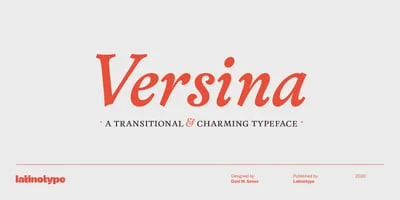
Versina Font
Versina Font is perfect for poetry publications, artistic magazines, creative writing projects, literary journals, fine art galleries, cultural exhibitions, sophisticated branding, elegant invitations, and expressive editorial layouts. This graceful typeface brings poetic elegance and artistic sophistication to projects requiring refined typography with creative flair and literary sensibility.
What makes Versina Font exciting is its poetic rhythm that captures the musical cadence of verse and literary expression with remarkable grace and artistic sensitivity. The font features flowing letterforms with subtle variations and harmonious proportions that create visual poetry and emotional resonance. Its literary character and expressive personality make it irresistible for creative professionals seeking typography that communicates artistic depth while celebrating the beauty of written language and creative expression.
The Versina Font family includes expressive weights and artistic styles: Light, Regular, Medium, Bold, and calligraphic variations with stylistic alternates and poetic ligatures. Each weight maintains the font's literary character while offering designers creative flexibility for artistic publishing and cultural communication applications requiring expressive typography and creative sophistication.
Whether you're designing for literary publishers or creative institutions, Versina Font provides designers with an artistic, literature-focused typeface solution. The font's poetic aesthetics and expressive styling make it ideal for poetry presses, literary magazines, creative writing programs, and cultural organizations. Its eloquent presence ensures your message communicates artistic sophistication and creative depth while maintaining beautiful readability. The comprehensive character set includes literary symbols and artistic alternates, making it perfect for creating inspiring headlines and brand identities that celebrate written artistry and establish meaningful connections with audiences seeking authentic creative experiences and literary excellence.